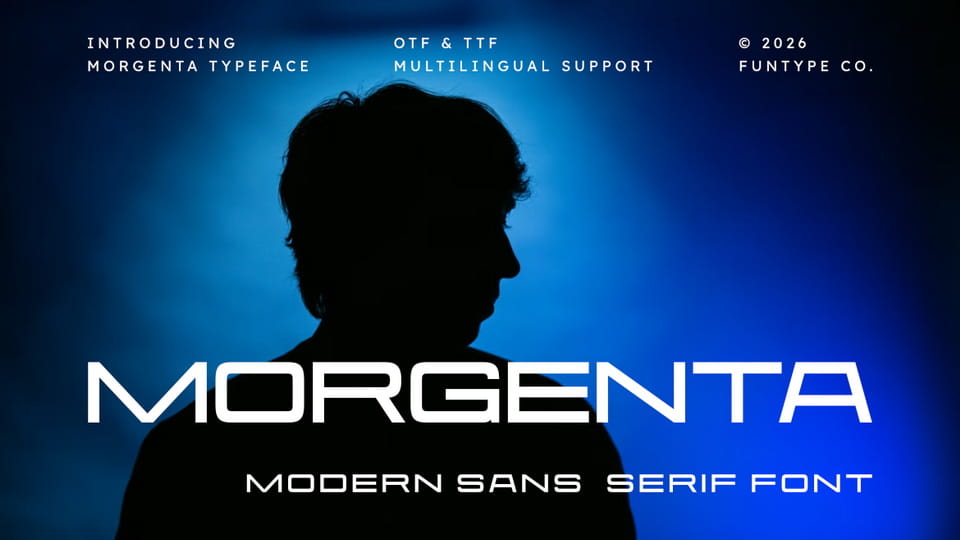
Download Morgenta font, a sophisticated and powerful modern sans serif typeface, thoughtfully designed to capture the essence of contemporary impact and futuristic storytelling.
Designer: Funtype Co.